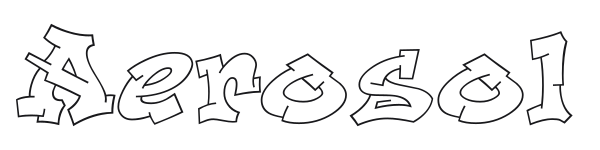
Triffiti
by Trish Anderson
Triffiti is a bold, irregular display face from Trish Anderson that captures the raw energy of street-level graffiti lettering. The characters feel hand-sprayed and loose, with uneven baselines and thick, edgy strokes that give it genuine urban grit. Best kept to headlines, posters, and display work where you want type that looks like it belongs on a concrete wall.